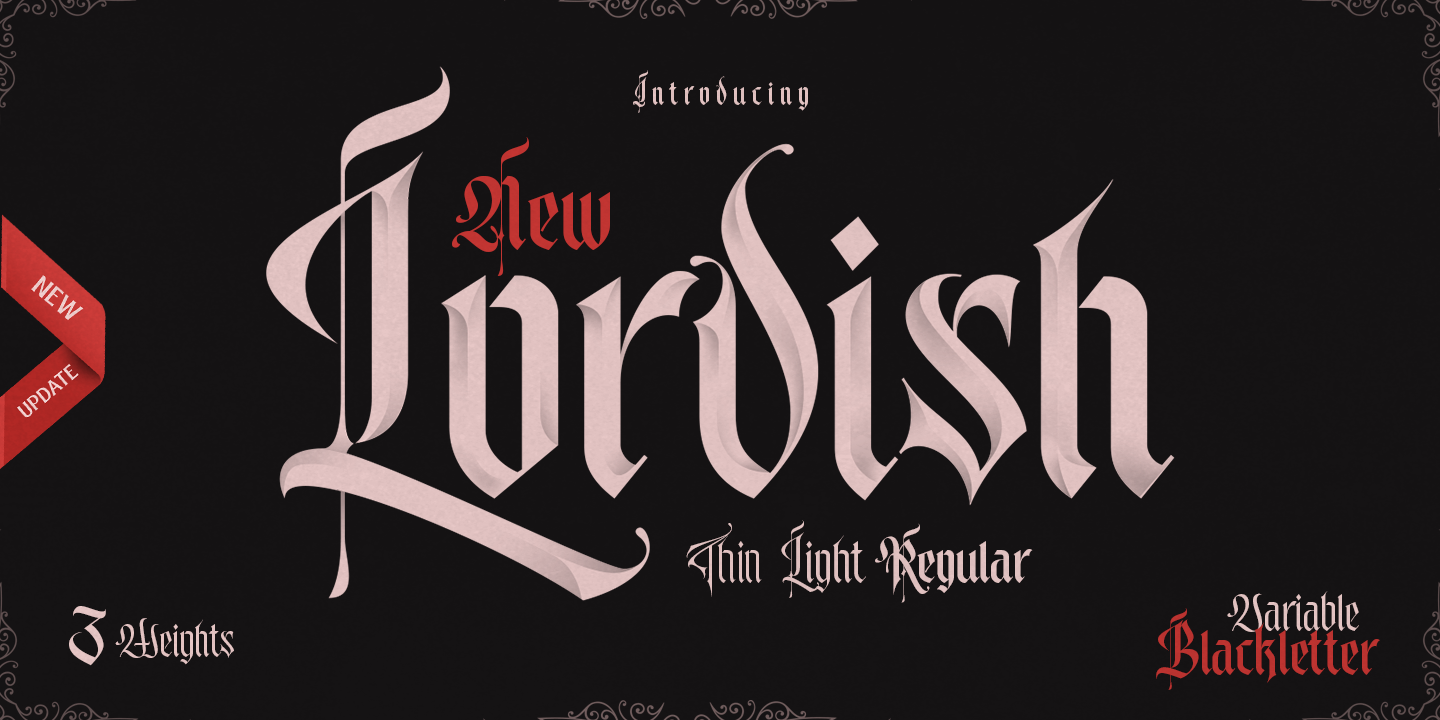
Lordish Font is perfect for luxury estate branding, aristocratic event invitations, high-end manor house signage, royal ceremony programs, prestigious private club materials, noble family crests, luxury hotel branding, exclusive wine labels, aristocratic fashion designs, heritage mansion marketing, and any project that requires regal sophistication with aristocratic elegance.
What makes Lordish Font exciting is its majestic embodiment of aristocratic heritage and noble traditions through refined letterforms that capture the grandeur of royal courts and the elegance of aristocratic lineage. This distinguished typeface features stately proportions with subtle ornamental details that convey authority, refinement, and hereditary distinction. The font's lordly character adds instant prestige and aristocratic appeal to any design, making it perfect for brands celebrating luxury heritage and noble sophistication.
Lordish Font comes in multiple font families including Regular, Bold, Light, Ornate, Condensed, and Royal variations, offering designers comprehensive options to create aristocratic compositions and achieve the perfect noble aesthetic for luxury-focused design projects.
Whether you're developing luxury heritage branding, creating aristocratic event materials, or designing prestigious campaign graphics, Lordish Font Free Download provides the ideal solution for projects demanding authentic noble character and aristocratic sophistication. This regal typeface excels in display applications where prestigious presence is essential, ensuring your designs communicate hereditary elegance and aristocratic authority. The stately character and noble styling of Lordish Font make it an indispensable tool for designers who prioritize aristocratic heritage, luxury prestige, and regal sophistication in their typographic selections.